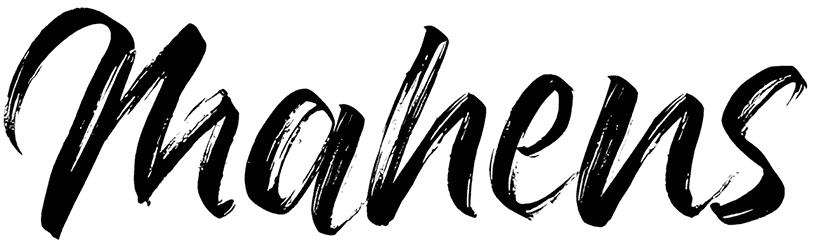
Mahens Font
Designed byDebut Studio
Get involved in Mahens, a gift from RB that is eager to decorate any graphics, including posters, quotes, greeting cards, and more. This A-Z brush font with an inner sense of natural and human spirit to live up to your expectations.
Be the one who flips the game and gets it back on track with this script font portrayed on your upcoming projects. Replace your content face in this freebie asset, and the magic is done at that very second.